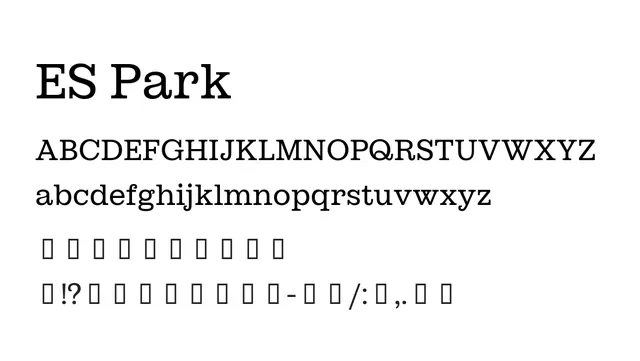
ES Park
ES Park, modern, warm
A transitional serif with modern proportions and humanist warmth, suitable for both display and body text in editorial and premium brand contexts.
ES Park works beautifully for body copy in editorial design, magazine layouts, and lifestyle branding. Its medium contrast and open spacing maintain readability at both large and small sizes.
Pair with ES Klarheit Kurrent or ES Klarheit Grotesk for contemporary serif-sans systems with warm or neutral counterparts respectively.